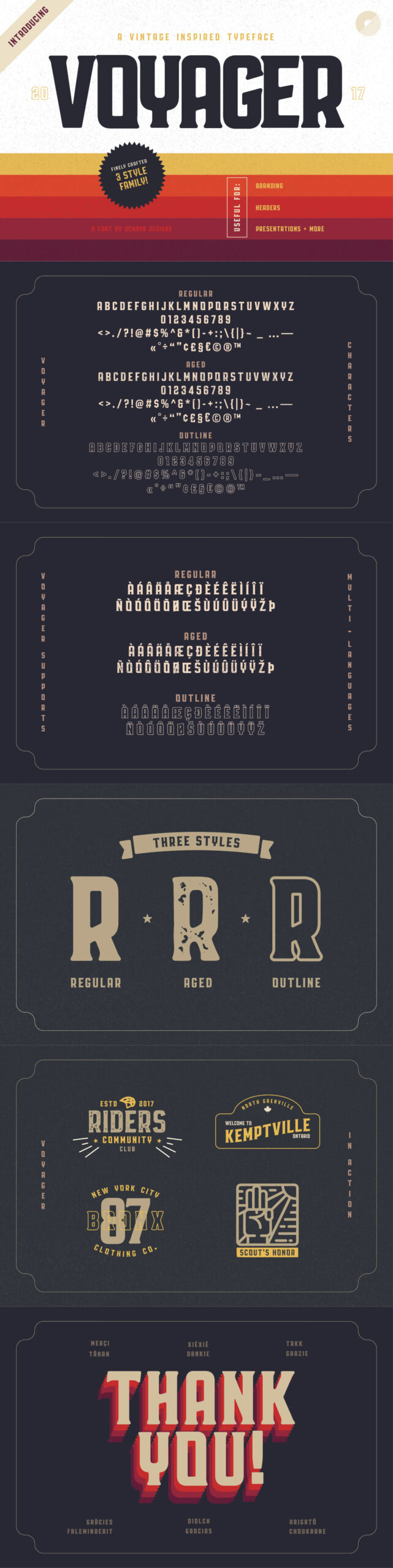
Voyager is a vintage font family designed by Ochaya Design. Made of 3 unique styles this typeface is a great choice for logos, greeting cards, quotes, posters, branding, business cards, and so much more. Free for personal use! For commercial use please go here.